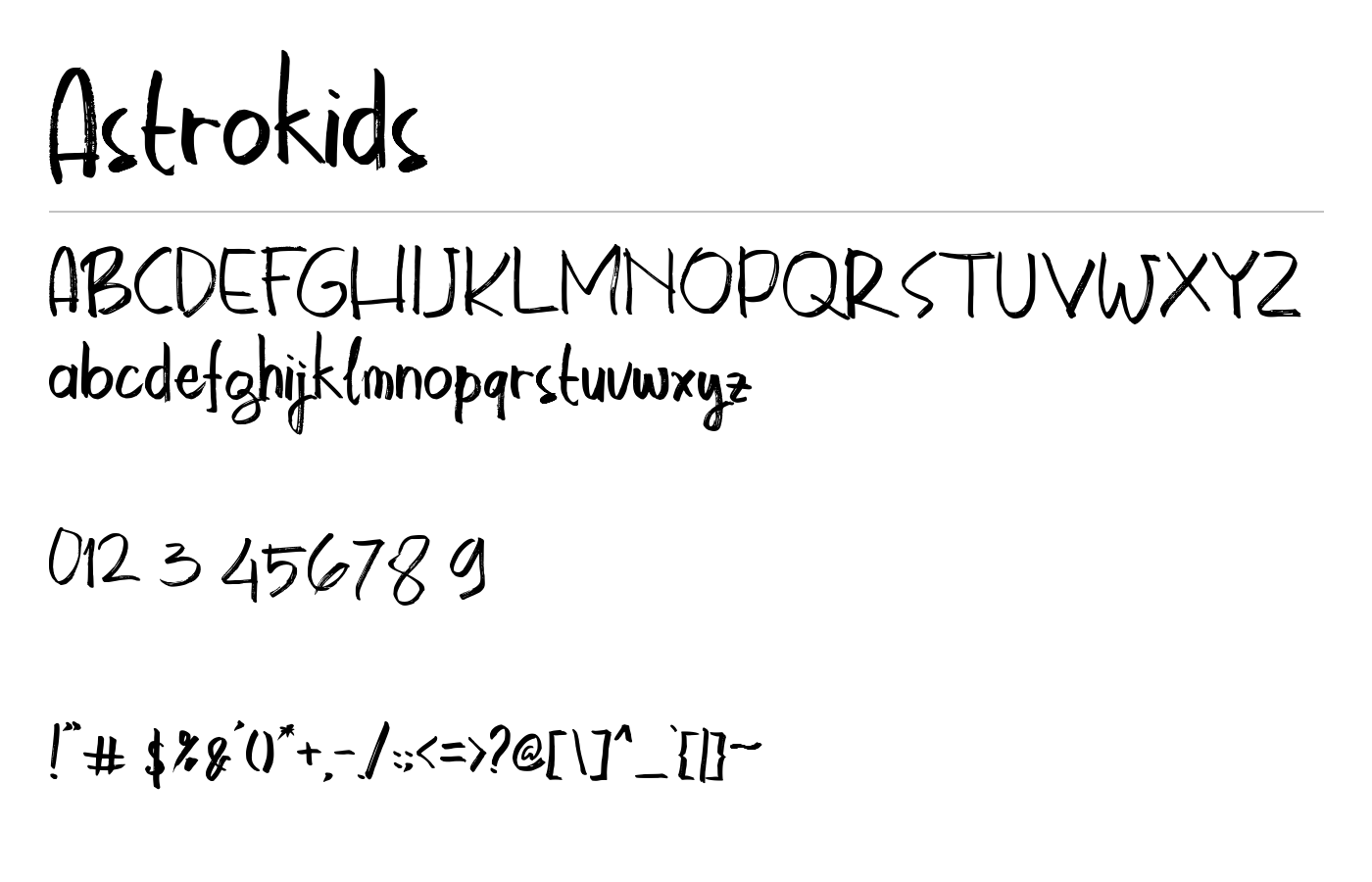
Astrokids is a playful, hand-drawn sans serif font that features uneven strokes and slightly irregular shapes, giving it a casual, youthful feel. Its tall, narrow letterforms and textured brush-like appearance make it perfect for creative projects aimed at children or informal, fun branding. This font works best in headlines, posters, and playful logos where an approachable and lively personality is desired.
Astrokids Font
About Astrokids Font
| Font family | Astrokids Font |